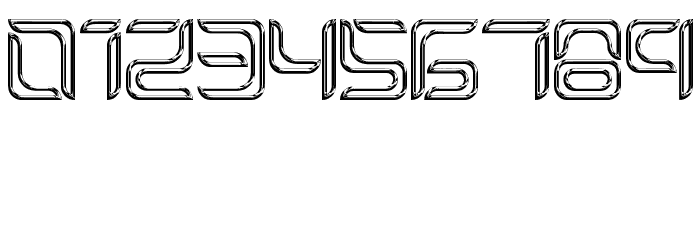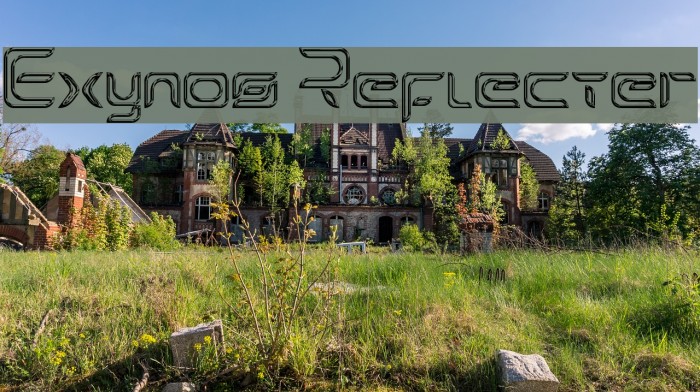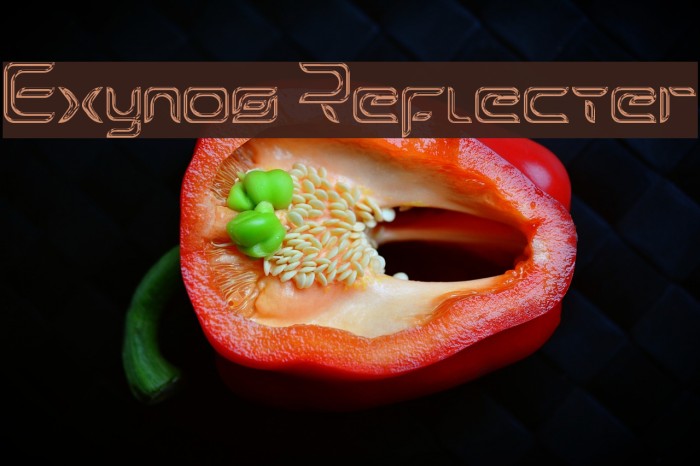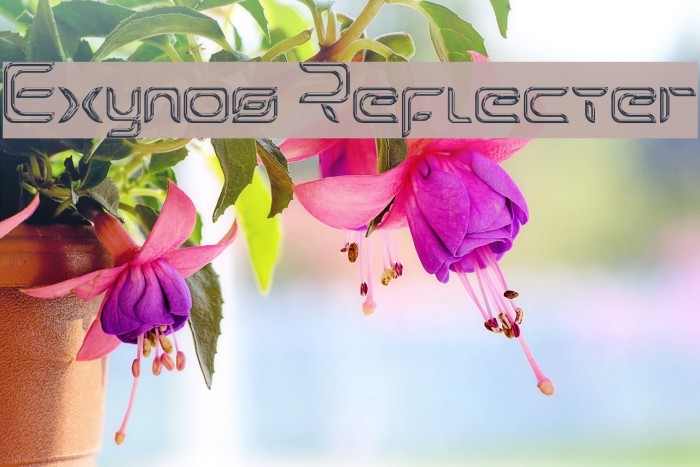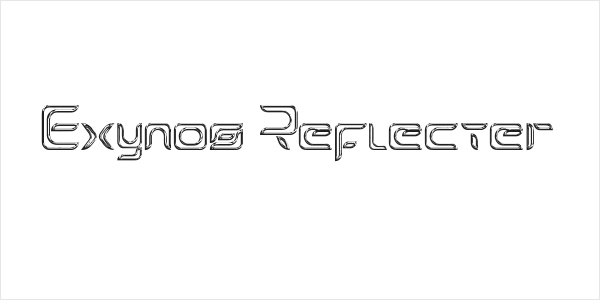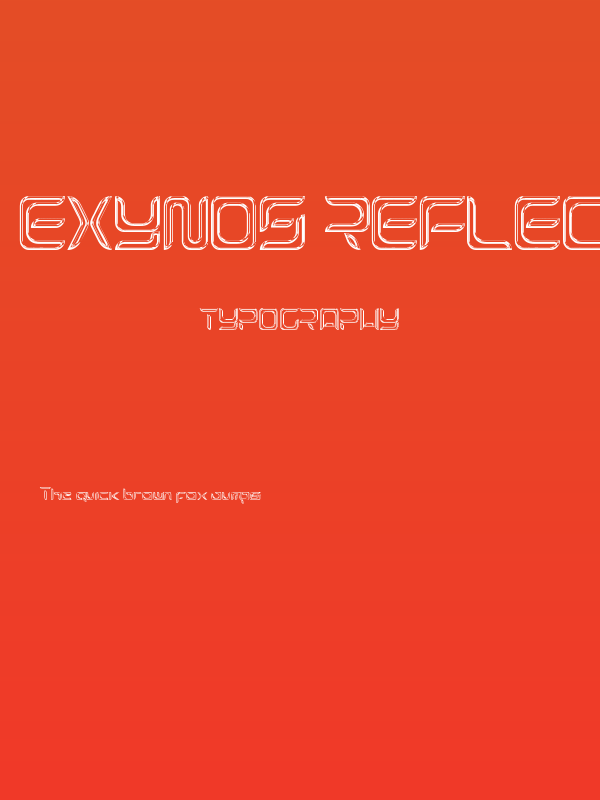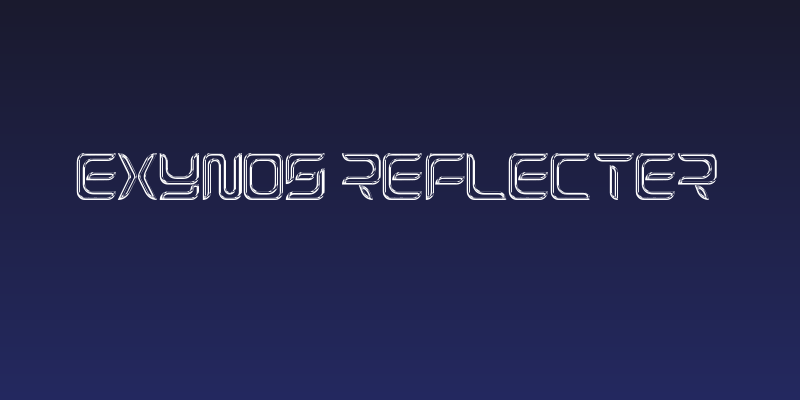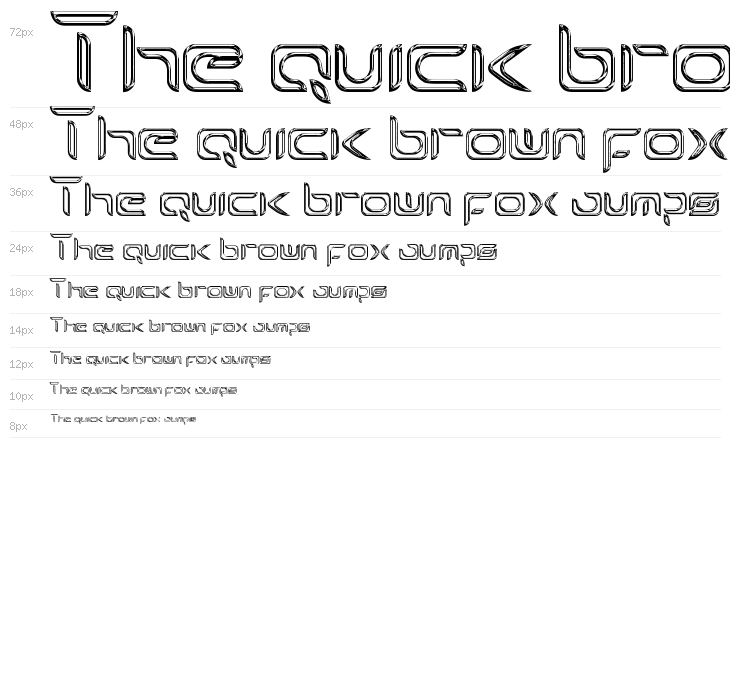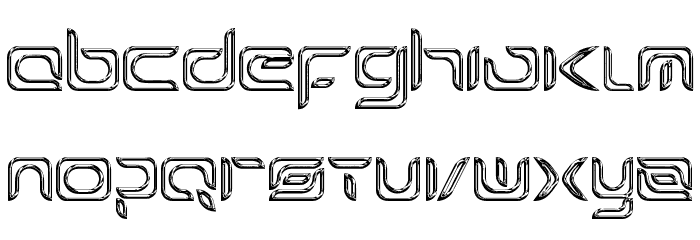
Exynos Reflecter Font
Exynos Reflecter Description
This font features a futuristic and geometric design with a distinct three-dimensional effect. The characters are constructed with bold, angular lines and sharp edges, creating a sense of depth and movement. The uppercase and lowercase letters maintain a consistent style, with unique cutouts and negative spaces that add to the modern aesthetic. The numbers and special characters follow the same design principles, ensuring uniformity across all glyphs. This font's intricate detailing and reflective appearance make it stand out, ideal for projects that require a high-tech or avant-garde look.
| Proposed Projects | Ideal for sci-fi themed designs, technology branding, video game titles, and futuristic posters. |